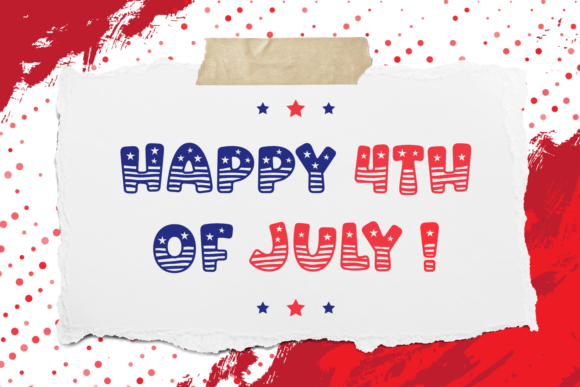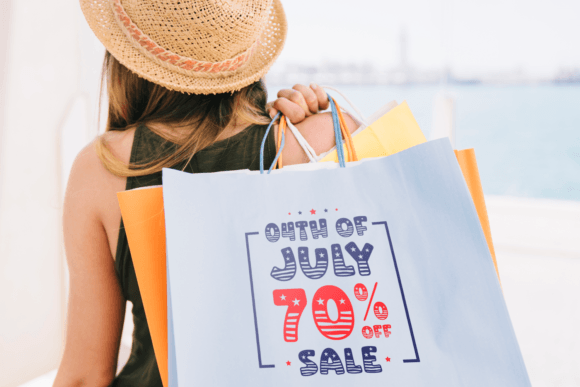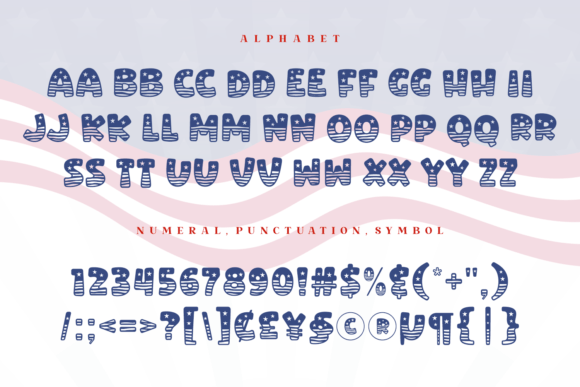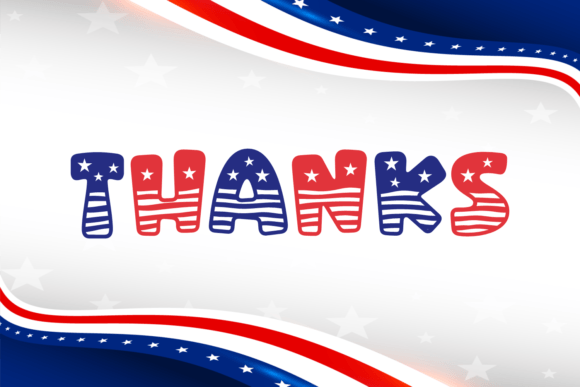
Star Glory Font
Star Glory font features an American flag motif that beautifully incorporates the iconic stars and stripes into the design of each letter. Each character is intricately crafted to evoke the patriotic spirit and symbolize the rich heritage and values associated with the United States.
The stars, representing the states, are placed strategically throughout the font, while the stripes, symbolizing the original thirteen colonies, gracefully flow along the letterforms. This decorative font is perfect for projects that celebrate American culture, history, or events such as Independence Day, Veterans Day, or Memorial Day. It can be used to create impactful headlines, banners, or signage, infusing a sense of national pride and identity into any design.